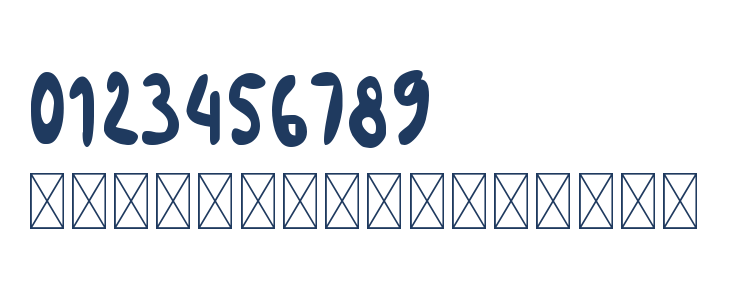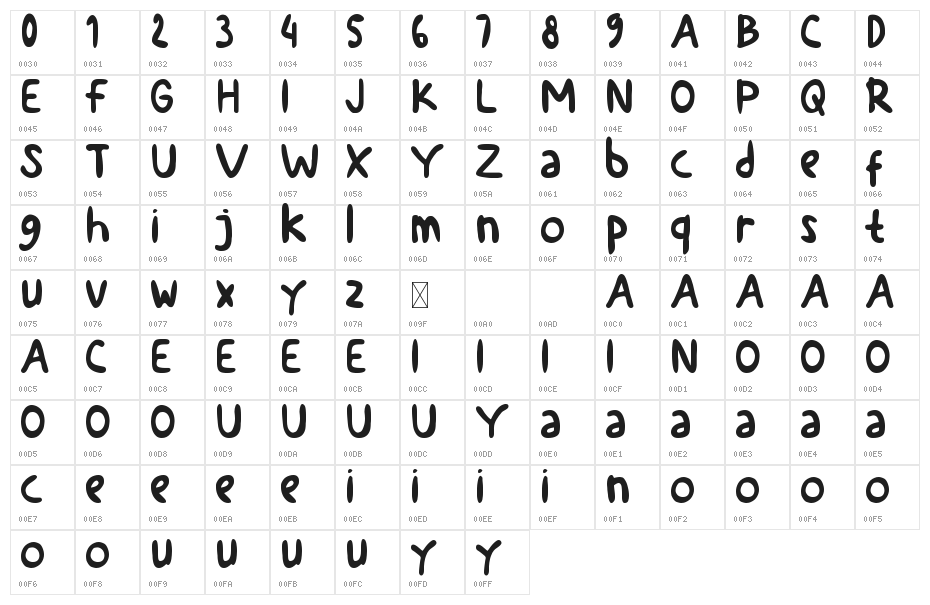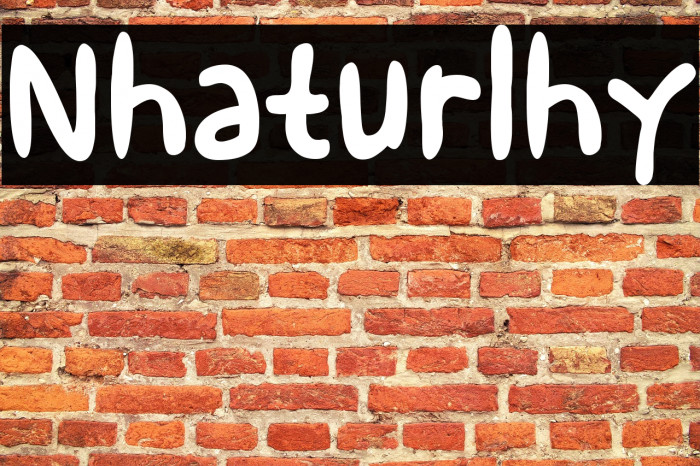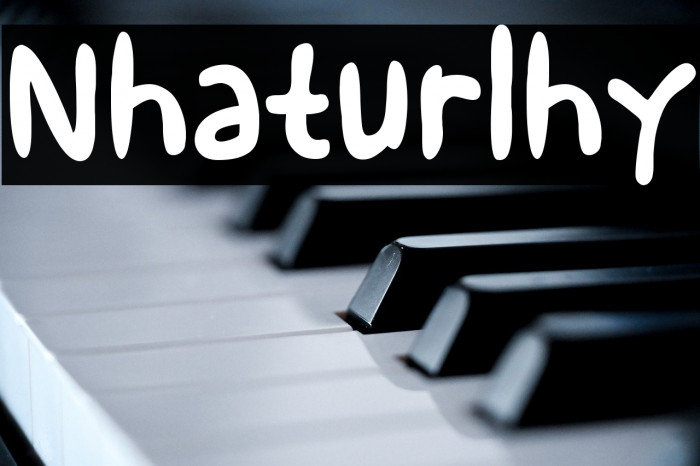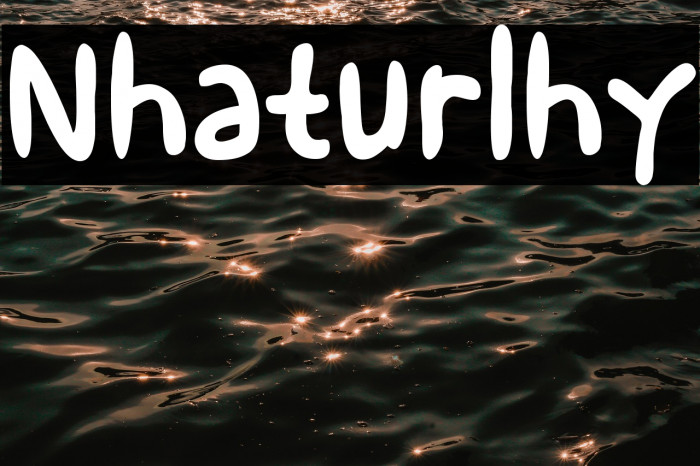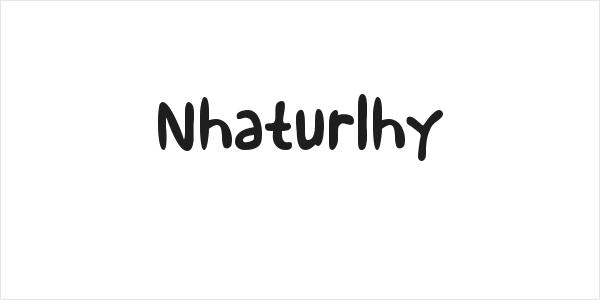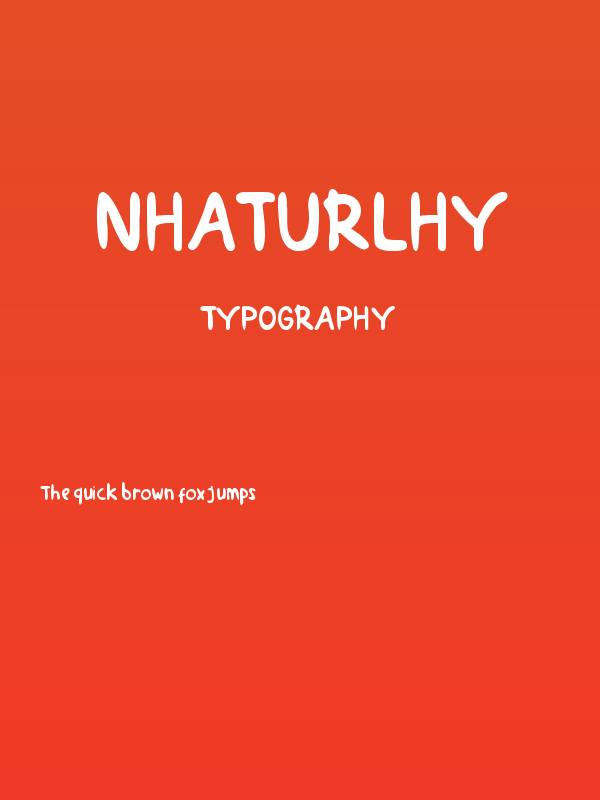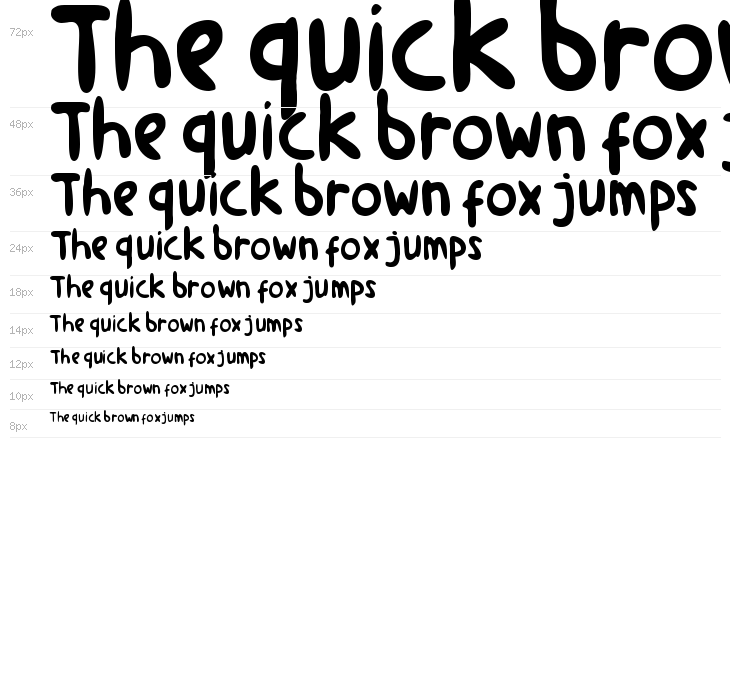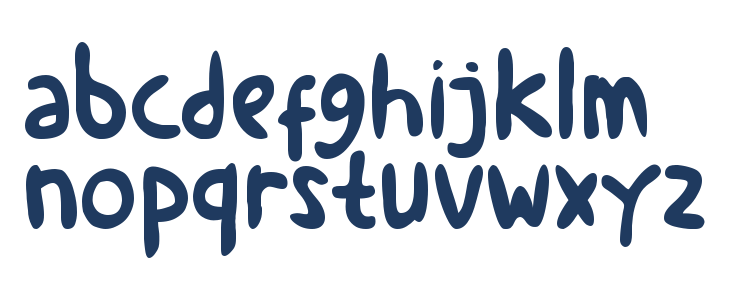
Nhaturlhy Font
Nhaturlhy Description
This playful and bold font features a handwritten style with rounded edges and a casual, friendly appearance. The characters are slightly irregular, giving it a whimsical and informal feel. The uppercase and lowercase letters maintain a consistent style, with the lowercase letters being slightly smaller and more compact. The numbers are bold and easy to read, matching the playful aesthetic of the letters. Special characters are included, maintaining the same rounded and friendly design. This font is ideal for projects that require a personal touch or a fun, approachable vibe.
Overall StylePlayful
Use CaseHeadlines, Logos, Informal Text
Proposed ProjectsIdeal for children's books, greeting cards, playful branding, and casual invitations.